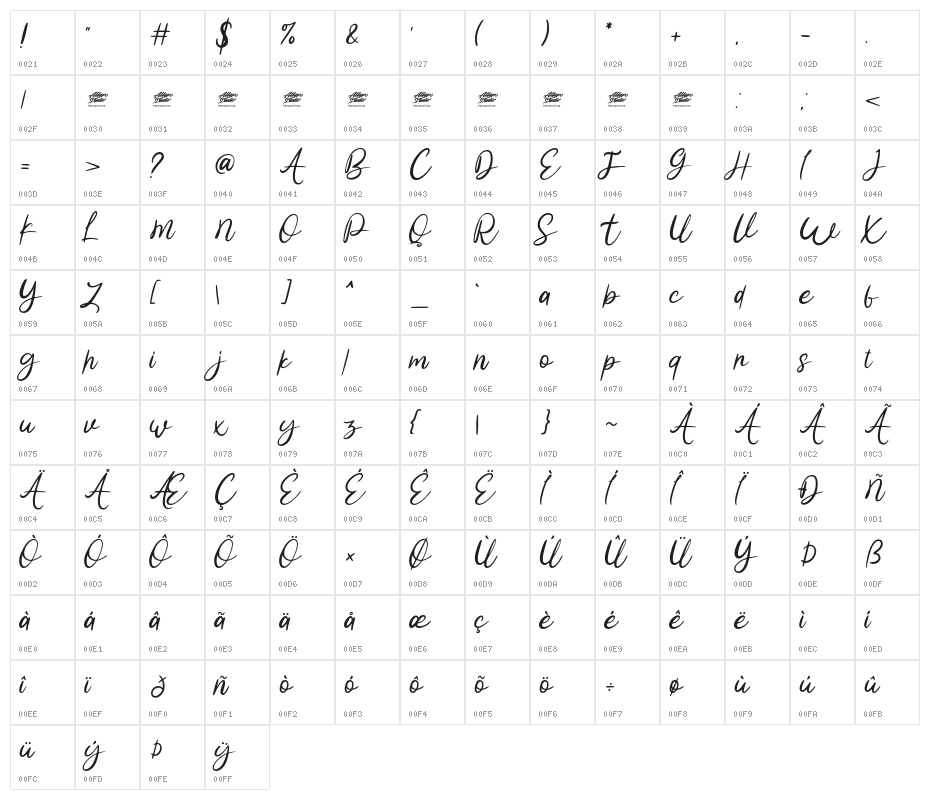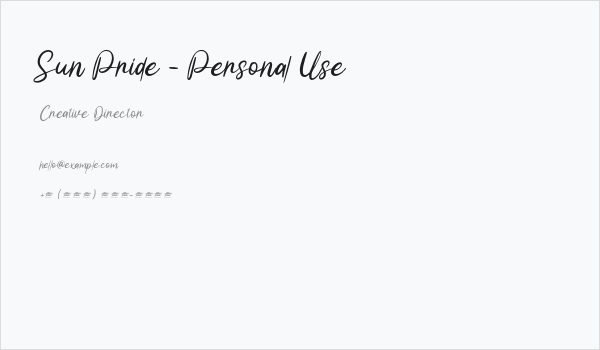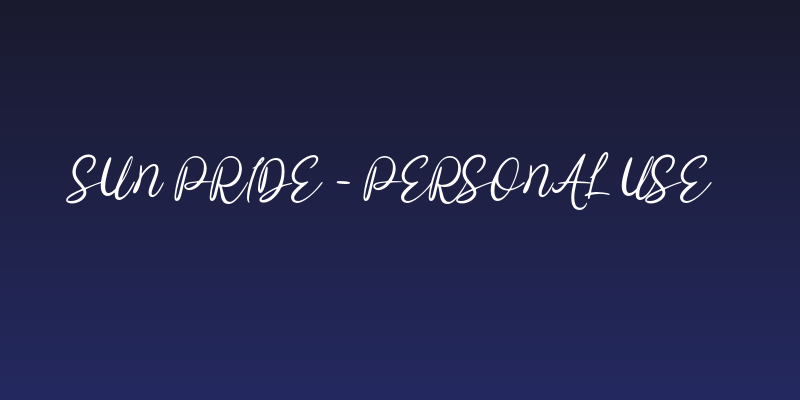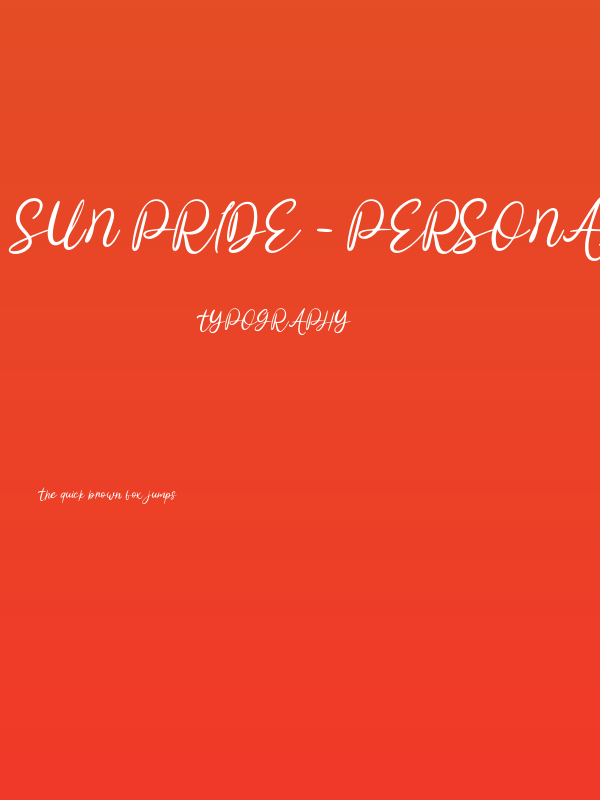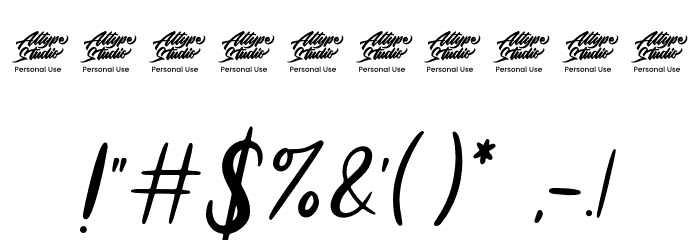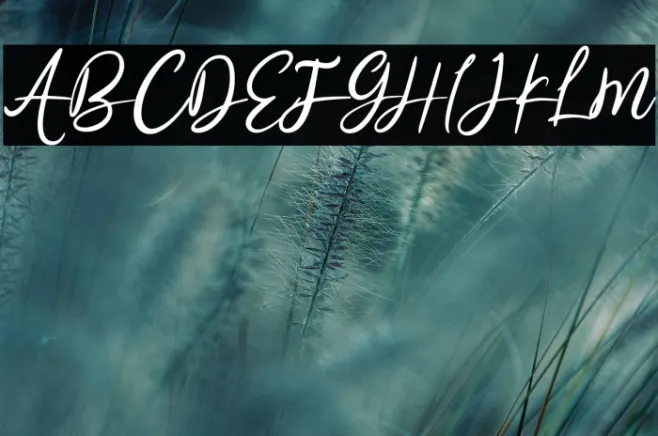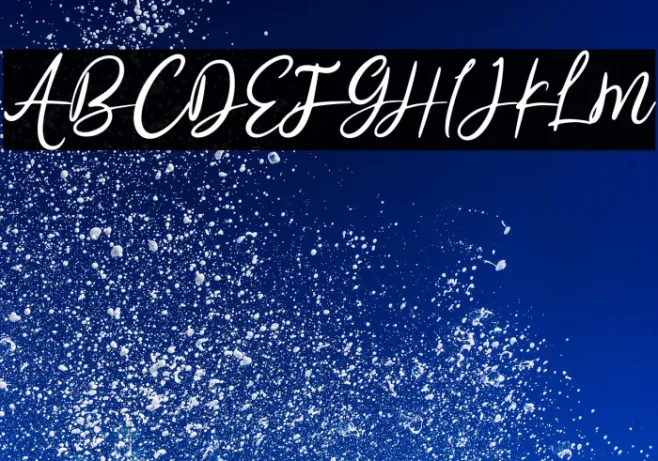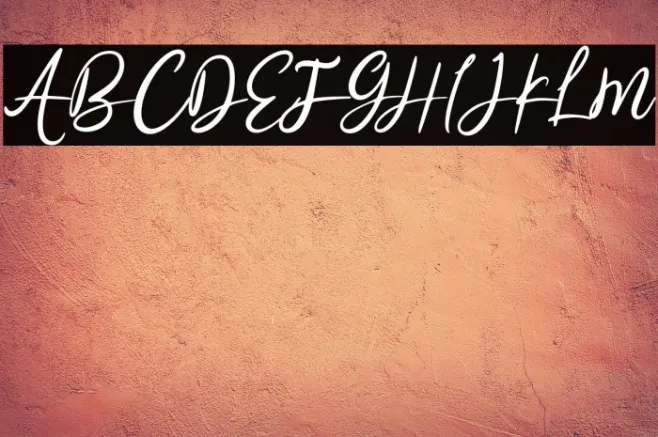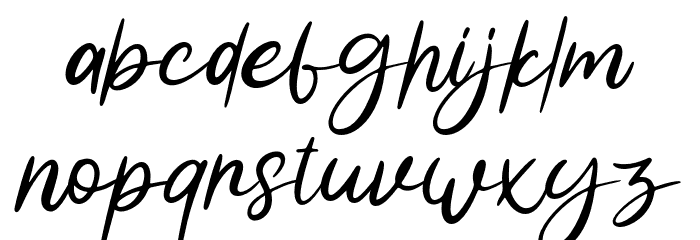
Sun Pride - Personal Use Font
Sun Pride - Personal Use Description
This font features a flowing, cursive style with elegant, sweeping lines that create a sense of movement and grace. The uppercase letters are bold and prominent, with distinctive loops and flourishes that add a touch of sophistication. The lowercase letters maintain the same fluidity, with smooth connections between characters that enhance readability. The numerals and special characters are designed to complement the overall aesthetic, maintaining the same graceful curves and stylish flair. This font exudes a modern yet timeless appeal, making it suitable for a variety of design applications.
| Proposed Projects | Ideal for wedding invitations, elegant branding, personal stationery, and decorative headlines. |